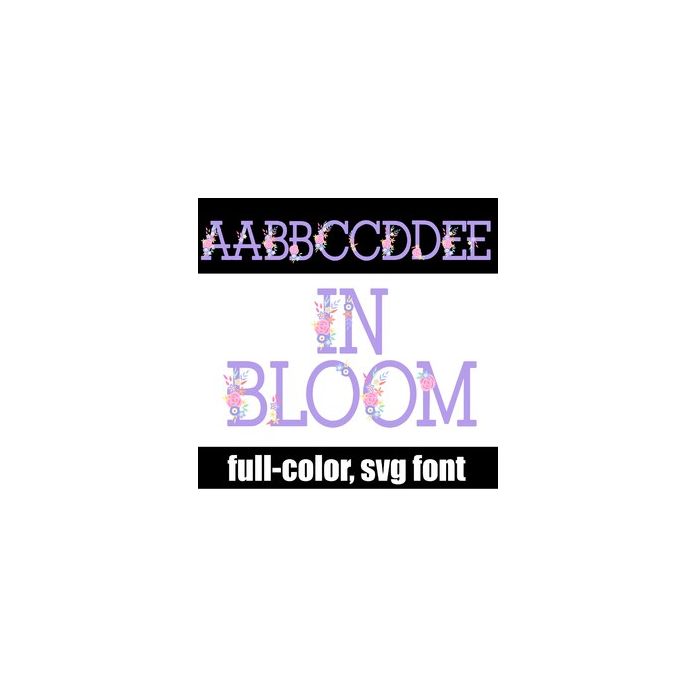
This full-color font features slab serif lettering in lavender and purple with florals throughout. There is an alt version you can access through your system's character map that contains additional colors of all the letters.